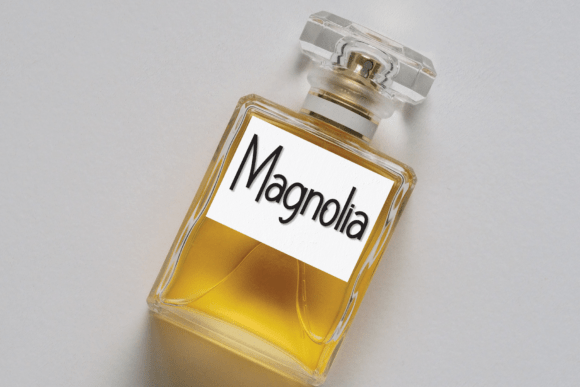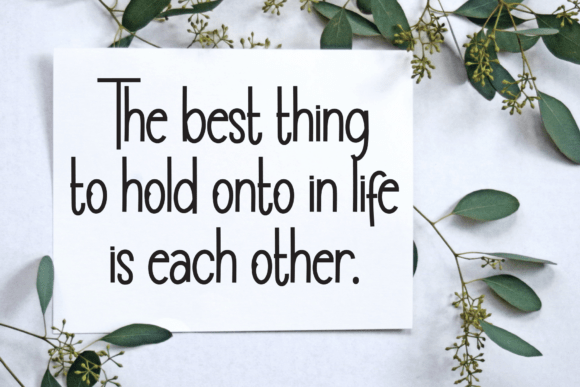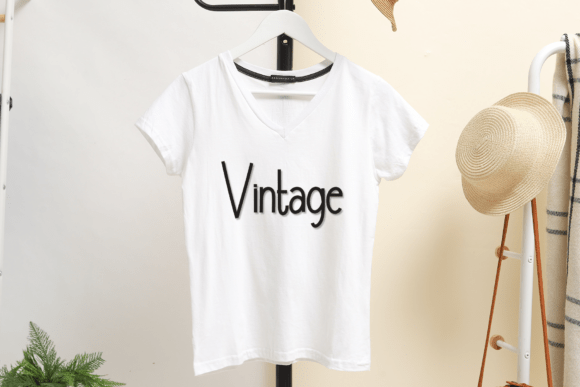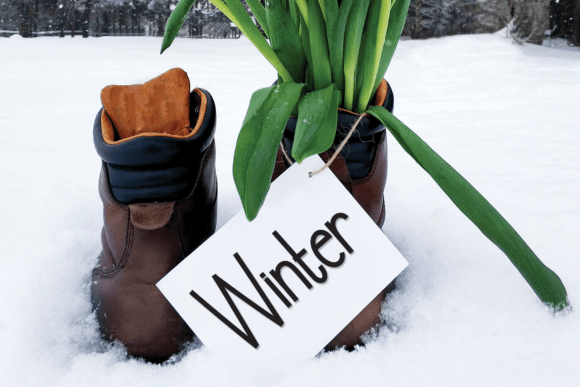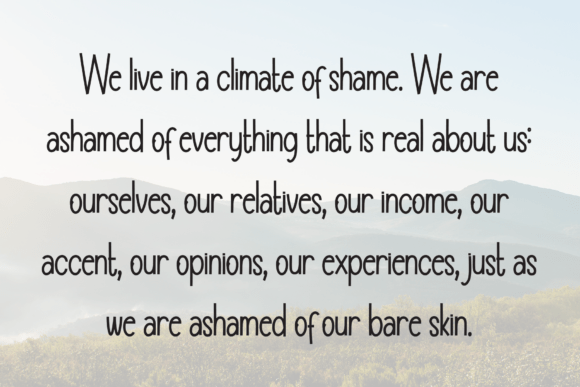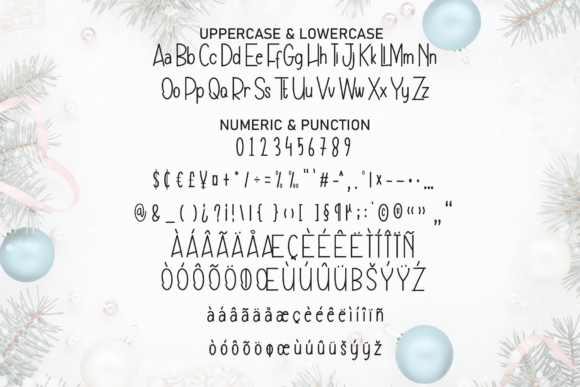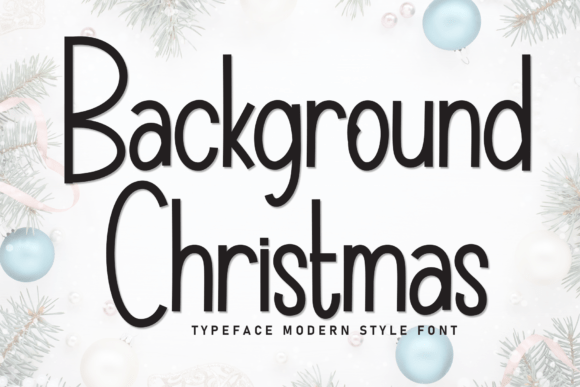
Introducing Background Christmas Font: The Perfect Blend of Warmth and Personality
Are you looking for a font that can add a personal touch to your designs? Look no further than Background Christmas Font, a casual handwritten font that radiates warmth and personality. With its smooth strokes, natural curves, and easy-flowing letterforms, this font captures the charm of authentic handwriting with a modern, approachable feel.
The Characteristics of Background Christmas Font
Background Christmas Font is a unique and versatile font that boasts several characteristics that make it ideal for a wide range of design projects. Some of its key features include:
- Smooth Strokes: The font features smooth, flowing strokes that give it a natural and effortless look.
- Natural Curves: The curves in Background Christmas Font are organic and fluid, adding to its handwriting-like feel.
- Easy-Flowing Letterforms: The letterforms in this font are designed to flow easily into one another, creating a sense of continuity and harmony.
Why Designers and Crafters Love Background Christmas Font
Background Christmas Font is a favorite among designers and crafters for several reasons. Here are just a few:
- Perfect for Quotes and Invitations: The font’s casual, handwritten style makes it ideal for quotes, invitations, and other personal communications.
- Branding and Social Media: Background Christmas Font is also well-suited for branding and social media posts, where it can add a personal and friendly touch to any design.
- Readability and Charm: With its effortless style and versatile character, this font delivers both readability and charm, making it perfect for a wide range of design projects.
How to Use Background Christmas Font in Your Designs
Using Background Christmas Font in your designs is easy. Here are a few tips to get you started:
- Pair it with Other Fonts: Background Christmas Font pairs well with other fonts, including serif and sans-serif fonts. Try pairing it with a bold font for a striking contrast.
- Use it for Headings and Titles: The font’s bold and playful style makes it perfect for headings and titles.
- Add it to Your Social Media Posts: Use Background Christmas Font to add a personal touch to your social media posts and make them stand out.
The Benefits of Using Background Christmas Font
There are many benefits to using Background Christmas Font in your designs. Here are just a few:
- Unique and Eye-Catching: The font’s unique and eye-catching design makes it perfect for designers who want to stand out from the crowd.
- Easy to Read: Background Christmas Font is easy to read, even at small sizes, making it perfect for body text and captions.
- Versatile: The font’s versatility makes it suitable for a wide range of design projects, from invitations and quotes to branding and social media posts.
Background Christmas Font is a casual handwritten font that radiates warmth and personality. With its smooth strokes, natural curves, and easy-flowing letterforms, it captures the charm of authentic handwriting with a modern, approachable feel. Whether you’re a designer or crafter, this font is perfect for adding a personal touch to your designs. So why wait? Try Background Christmas Font today and see the difference it can make in your designs.
- What is Background Christmas Font? Background Christmas Font is a casual handwritten font that features smooth strokes, natural curves, and easy-flowing letterforms.
- What is Background Christmas Font used for? Background Christmas Font is ideal for quotes, invitations, branding, and social media posts.
- Is Background Christmas Font easy to read? Yes, Background Christmas Font is easy to read, even at small sizes.